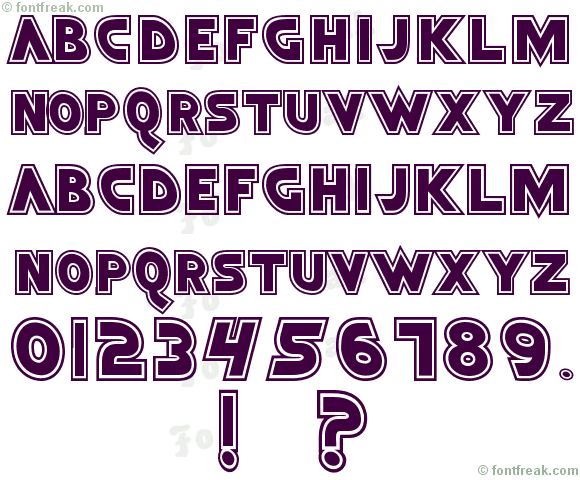
Bimasakti
Bimasakti by Adien Gunarta is a striking display typeface that showcases a unique blend of modern and artistic elements. This font falls into the decorative category, characterized by its bold and expressive design. With thick strokes and a high contrast between the letterforms, Bimasakti captures attention effortlessly. The letters exhibit a playful yet sophisticated vibe, making them suitable for a variety of creative projects. The spacing is well-balanced, ensuring readability while maintaining a distinct aesthetic appeal.
Bimasakti is ideal for use in vibrant contexts such as movie posters, where it can evoke excitement and drama, or in branding for small businesses that wish to convey a unique identity. Additionally, it can enhance wedding invitations, giving them a modern twist, or serve as a captivating headline font for restaurant menus, adding a touch of creativity to the dining experience. The font’s versatility makes it appealing to graphic designers, small business owners, and content creators alike, who are in search of a typeface that stands out in competitive markets.
This font is available under a freeware license, making it accessible for personal and commercial projects. The design reflects a contemporary style while paying homage to traditional typography, allowing it to bridge various design aesthetics. Bimasakti font free download offers an exciting opportunity for creatives to incorporate this unique typeface into their work without constraints. Its distinctive characteristics and adaptability ensure that it will leave a lasting impression in any design, making it a valuable addition to any typographer’s toolkit. Whether you’re creating eye-catching visuals or elegant invitations, Bimasakti is sure to elevate your project to new heights.